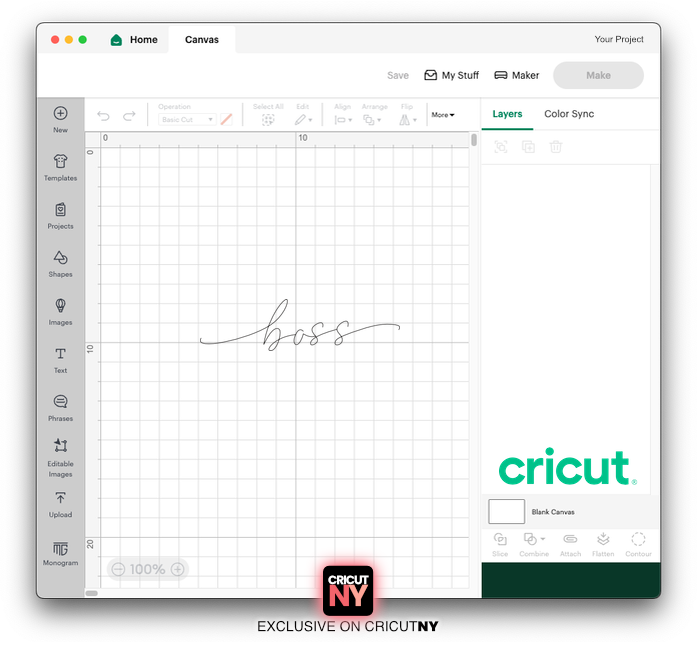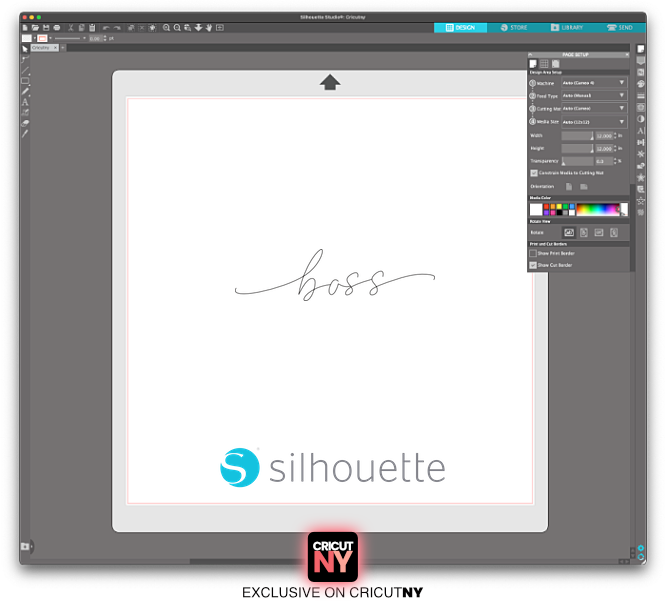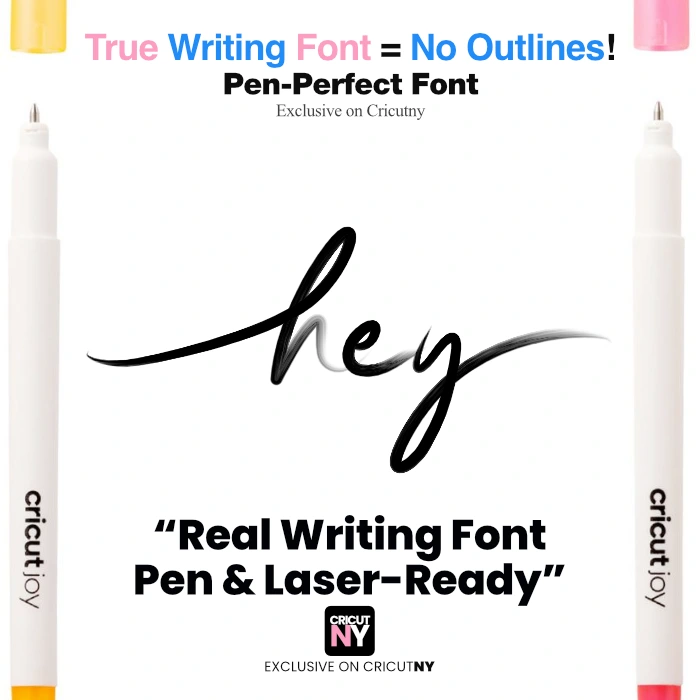
✍️ The Font That Finally Writes Like It Should – 🖊️ Pen & 🔥 Laser Friendly
🖊️ Pen & 🔥 Laser Friendly
Say goodbye to ✌️ double lines and 😩 frustrating fill tricks!
True Write Vol. 1 is not just a handwriting-style font — it’s a ✨ true writing font ✨, designed to draw clean, single lines with your 🖊️ Cricut, ✂️ Silhouette, 🔥 Glowforge, and more.
💡 What’s the difference?
Most fonts (like .TTF or .OTF) are made with outlines — so when you draw them, your machine creates ❌ two lines around each letter.
True writing fonts use 💫 real single-line paths — so your machine draws just one clean stroke, like a real pen ✍️
No hacks. No fill tricks. No weird results.
Will this font draw clean single lines with my Cricut or Silhouette pen — or will it double-line like regular fonts?
Yes! This is a true writing font, meaning it’s made to draw clean, single lines with your Cricut or Silhouette pen — no fills, no workarounds. It writes just like handwriting, with no messy double outlines like standard fonts.
Can I use this font for cutting too, or is it only for drawing?
It’s made for drawing, not cutting. Since it’s a single-line design, cutting it may result in faint or incomplete shapes. For cutting, use bold SVG fonts or cut-optimized files.
Can I use this true writing font with Glowforge for scoring or engraving?
Yes! This true writing font is perfect for Glowforge scoring, because it uses single lines, not outlines. Just import the SVG into Glowforge and set it to “Score” — it’ll draw clean, smooth lines with no fill needed. Great for engraved handwriting on wood, acrylic, and more.
Can I customize the size or spacing between letters?
Yes! You can resize, adjust letter spacing, or ungroup letters for full control — just like any other SVG.